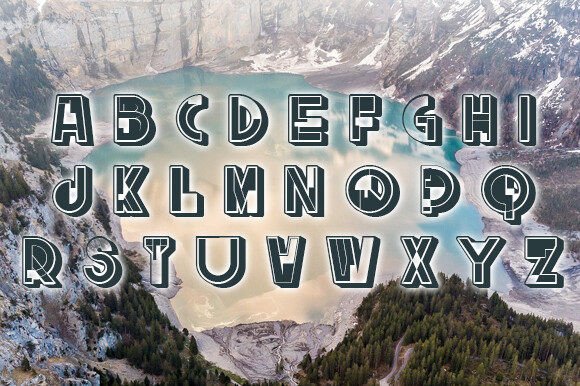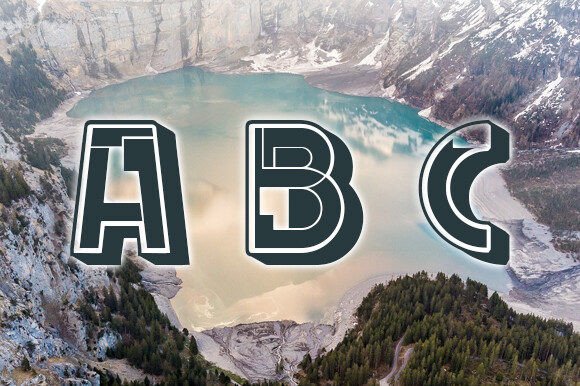
Introducing Drone Font: Elevate Your Designs with an Avant-Garde Typeface
Are you tired of using the same old fonts in your designs? Look no further than Drone Font, an avant-garde typeface that’s sure to inspire your next project. With its unique and edgy style, Drone Font is perfect for designers and crafters who want to add a touch of sophistication and modernity to their work.
What is Drone Font?
Drone Font is a modern sans-serif typeface that’s designed to make a statement. Its sleek and futuristic design makes it perfect for a wide range of applications, from posters and flyers to social media graphics and web design. Whether you’re working on a personal project or a client’s, Drone Font is sure to help you stand out from the crowd.
Key Features of Drone Font
- Unique and Edgy Design: Drone Font’s avant-garde design sets it apart from more traditional typefaces. Its sleek lines and futuristic style make it perfect for modern designs.
- Highly Versatile: Drone Font is highly versatile and can be used on a wide range of projects, from posters and flyers to social media graphics and web design.
- Easily Readable: Despite its edgy design, Drone Font is easily readable, even at small sizes. This makes it perfect for body text as well as headlines.
Uses for Drone Font
Drone Font is perfect for a wide range of design projects, including:
- Posters and Flyers: Use Drone Font to create eye-catching posters and flyers that are sure to grab attention.
- Social Media Graphics: Drone Font is perfect for social media graphics, including Facebook posts, Instagram stories, and more.
- Business Cards: Add a touch of sophistication to your business cards with Drone Font.
- Web Design: Use Drone Font to create modern and sleek website designs that are sure to impress.
Tips for Using Drone Font
Here are a few tips for getting the most out of Drone Font:
- Experiment with Different Sizes: Drone Font looks great at a wide range of sizes, from small body text to large headlines. Experiment with different sizes to find the one that works best for your project.
- Pair with Other Fonts: Drone Font pairs well with a wide range of other fonts. Try pairing it with a serif font for a classic look or with another sans-serif font for a modern look.
- Use it to Create Contrast: Use Drone Font to create contrast in your designs. For example, you could use it as a headline font and a more traditional font for body text.
Drone Font is an avant-garde typeface that’s sure to inspire your next design project. With its unique and edgy style, highly versatile design, and easily readable text, Drone Font is perfect for a wide range of applications. Whether you’re working on a personal project or a client’s, Drone Font is sure to help you stand out from the crowd. So why wait? Download Drone Font today and start elevating your designs to the next level.